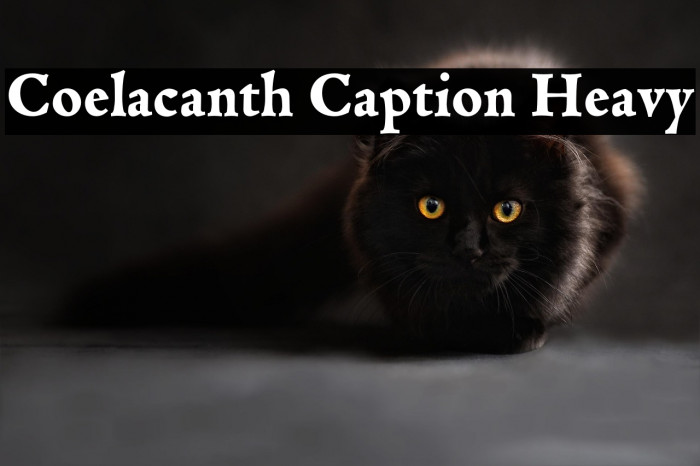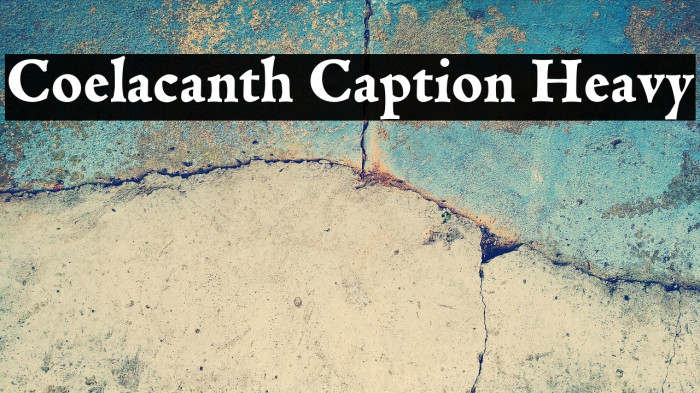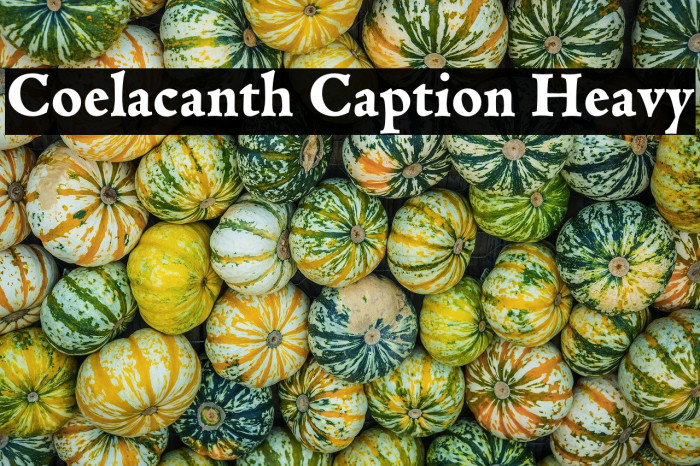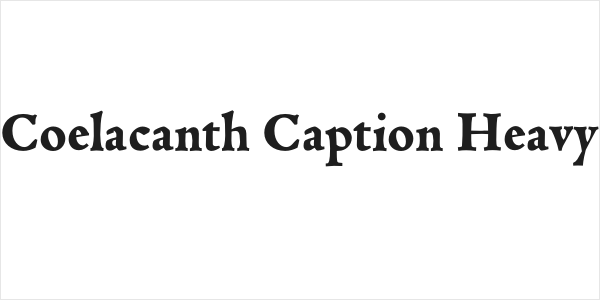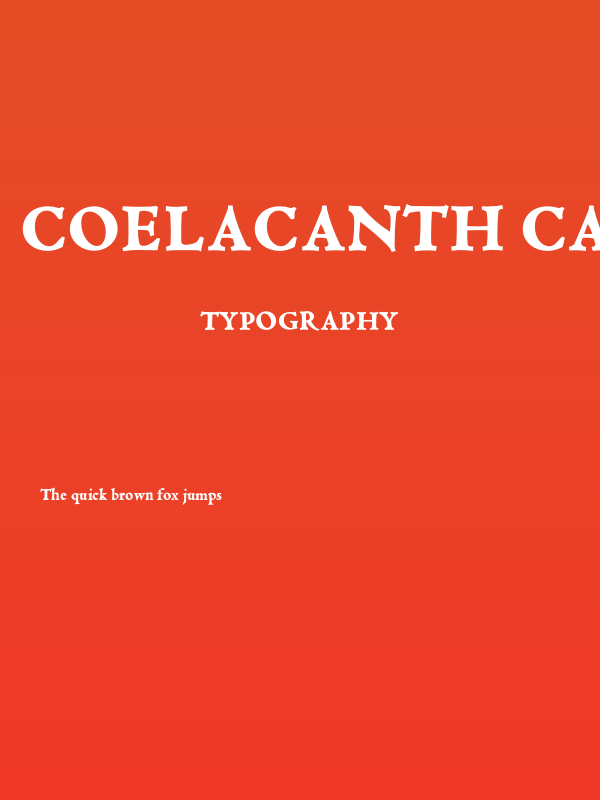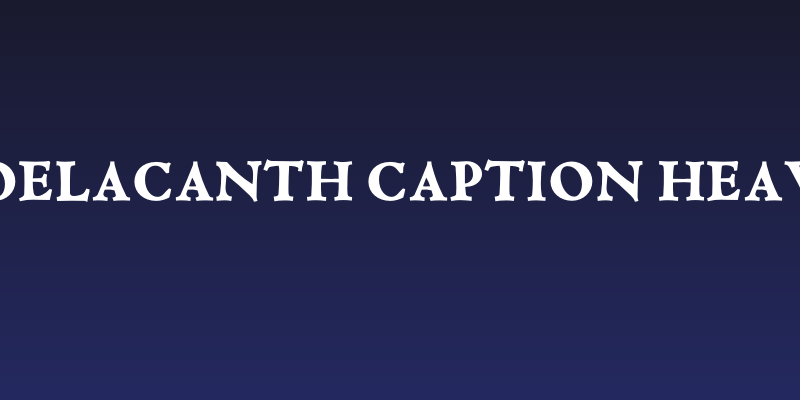
Coelacanth Caption Heavy Font
Coelacanth Caption Heavy Description
This font features a bold and distinctive style with a strong presence, characterized by its thick, uneven strokes and slightly irregular shapes. The serifs are pronounced, adding a touch of elegance and traditional flair. The uppercase letters are robust and commanding, while the lowercase letters maintain a consistent weight, providing a cohesive look. The numerals are equally bold, ensuring readability and impact. Special characters are crafted with the same attention to detail, making them stand out. This font's unique style is suitable for projects that require a dramatic and eye-catching typeface.
| Proposed Projects | Ideal for headlines, posters, branding, and any design that requires a bold statement. |